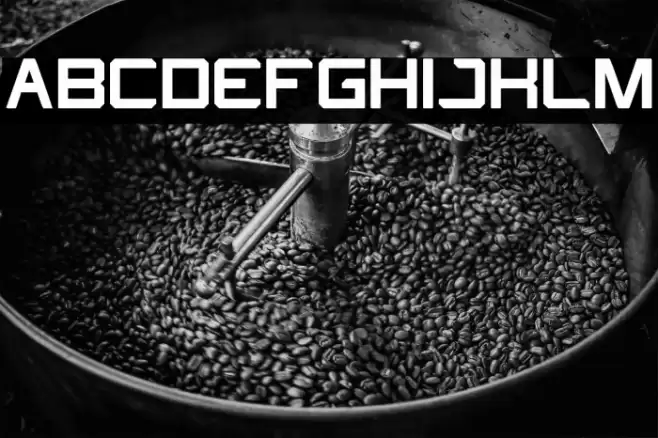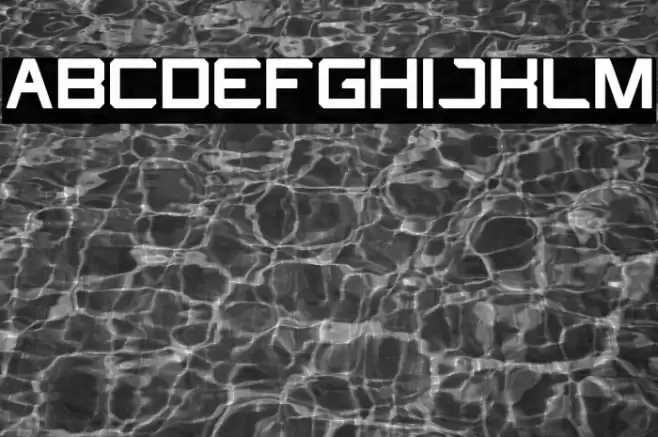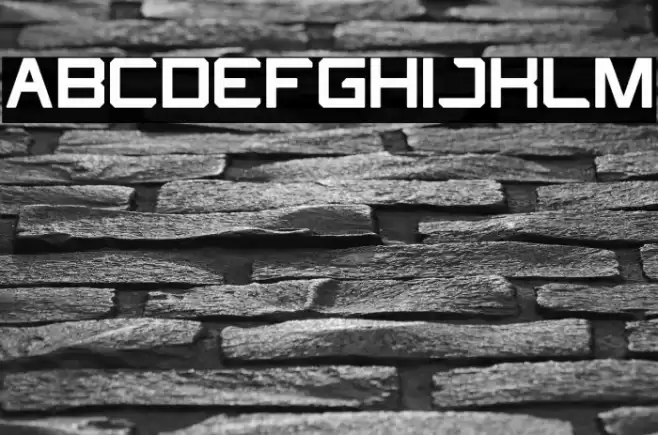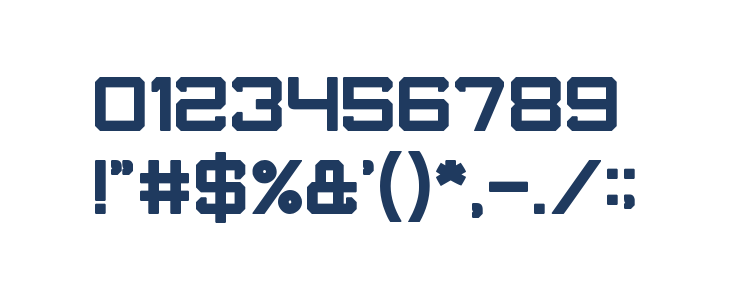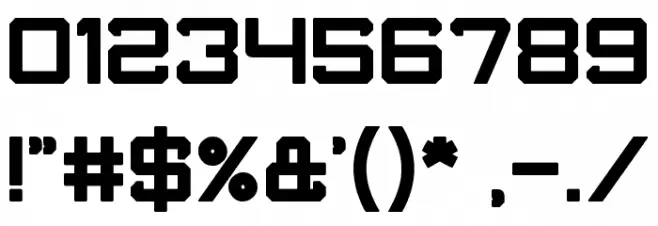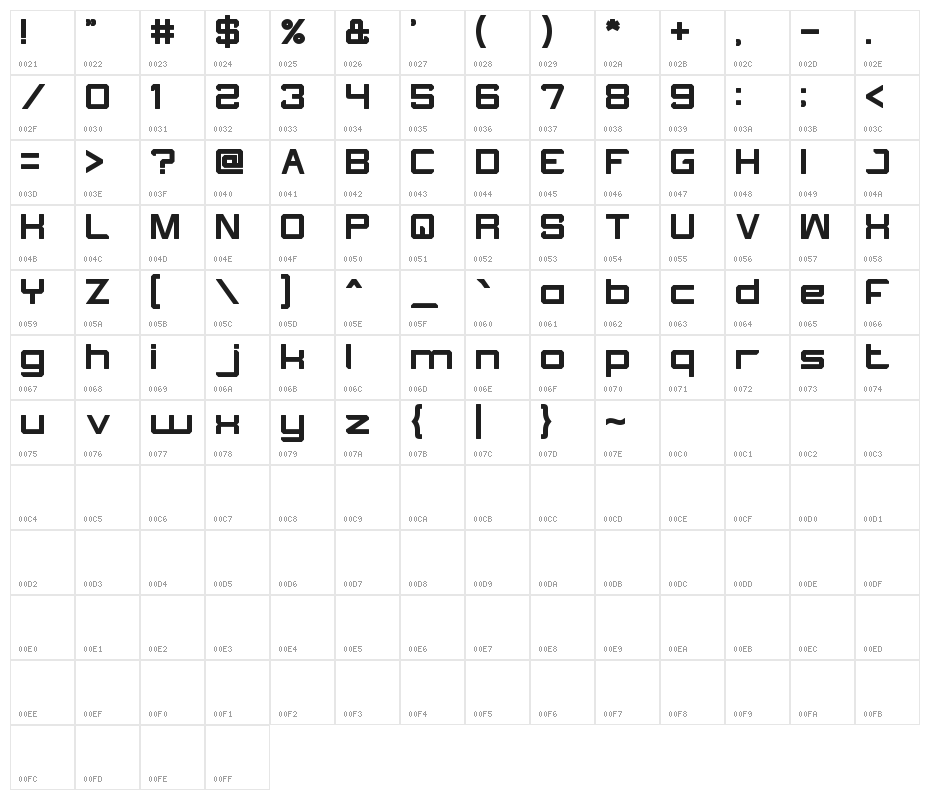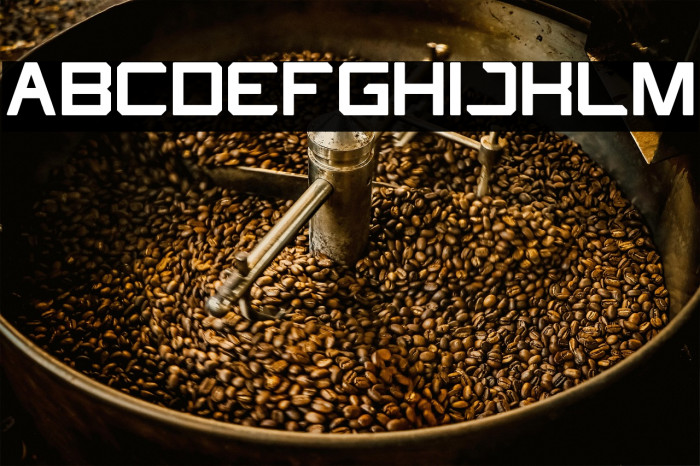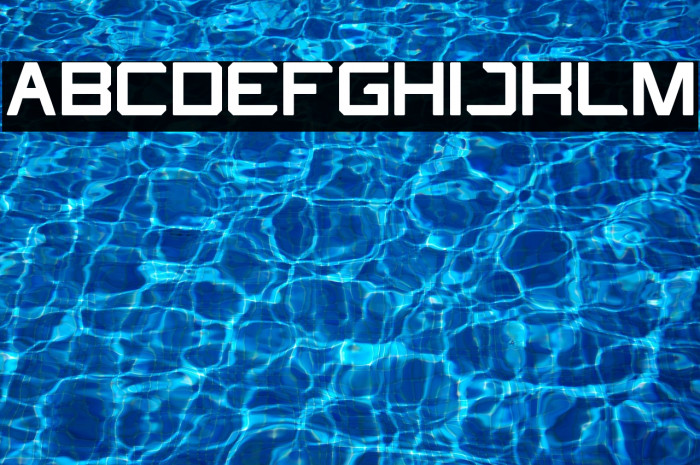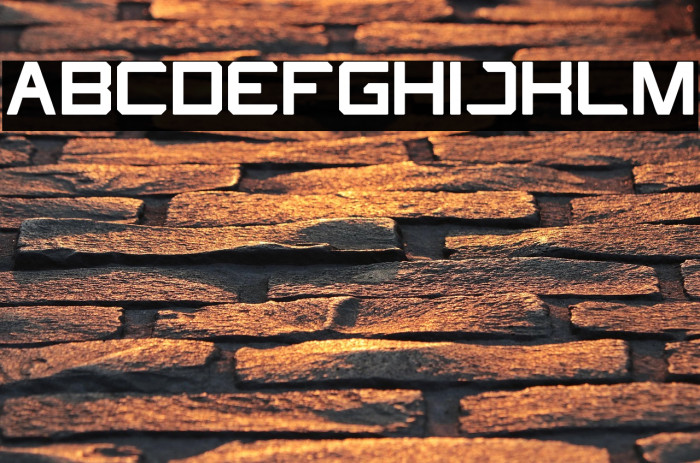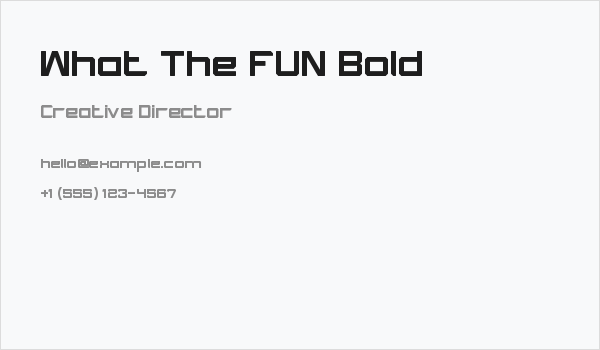
What The FUN Bold Font
What The FUN Bold Description
This font features a bold, geometric design with a modern and playful aesthetic. The characters are constructed with straight lines and sharp angles, giving it a futuristic feel. The uppercase and lowercase letters maintain a consistent height, contributing to a uniform appearance. The numbers and special characters follow the same design principles, ensuring a cohesive look across all glyphs. The font's boldness and unique style make it stand out, while the clean lines ensure readability. It is well-suited for projects that require a modern and edgy touch.
A bold, geometric font with a modern and playful style from Uncategorized fonts.
- Proposed Projects: Ideal for branding, posters, video game graphics, and tech-related designs.